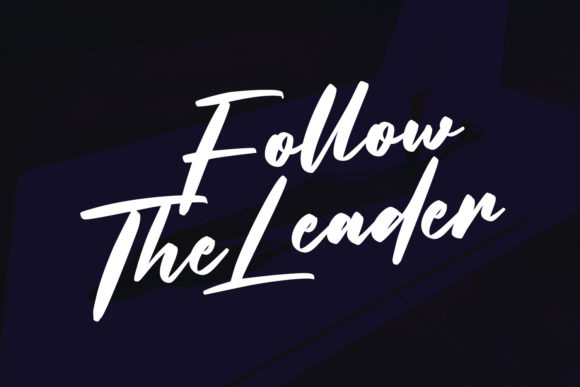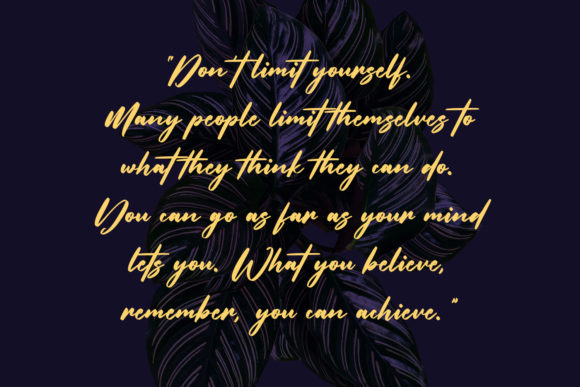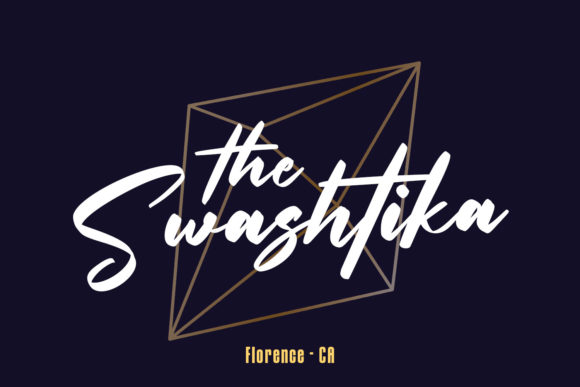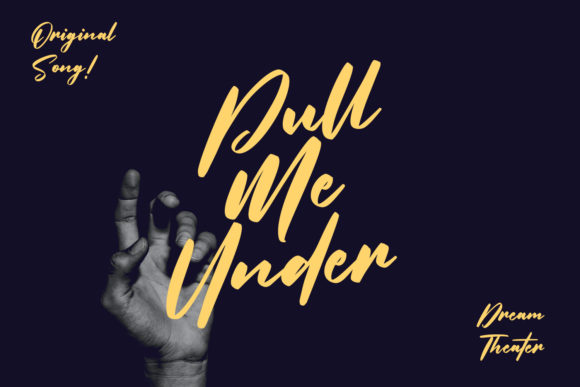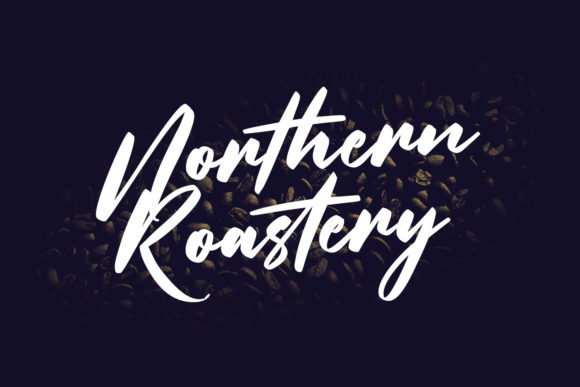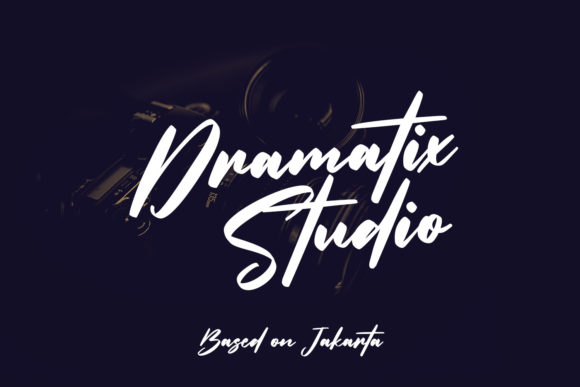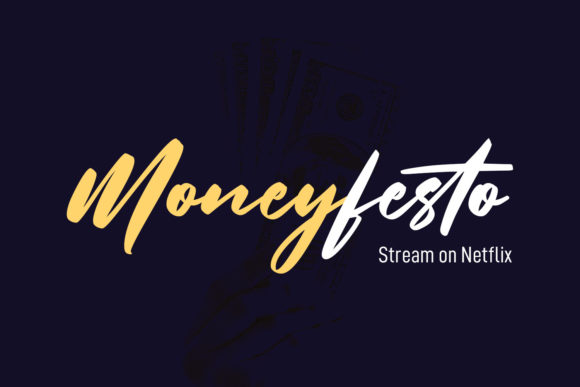
Overtis Signature Font
About Overtis Signature Font
Overtis Signature is a simple and flowing handwritten font. This adaptable font will look great on a variety of design ideas. It will add a fun and friendly touch to each of your projects!